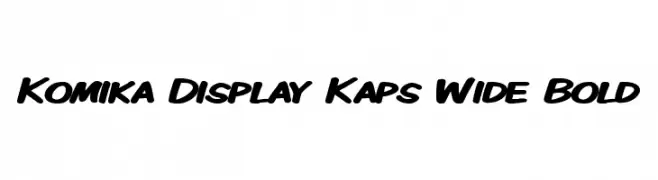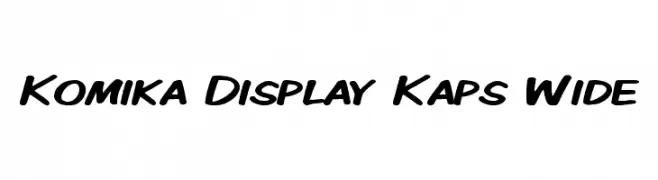
A playful, bold font with rounded edges and a cartoonish style.
A bold, rounded, and playful font with a dynamic slant.
A bold, playful font with a handwritten style and wide, rounded letters.
A bold, wide, and playful font with rounded, cartoonish characters.
A playful, comic-inspired font with bold, rounded characters and tight spacing.
A playful, bold, and wide font with a comic-like style.
A bold, playful font with wide, rounded letterforms and a dynamic slant.
A playful, comic-style font with bold, rounded outlines.
A bold, handwritten font with a playful and energetic style.
A bold, hand-drawn font with a playful, comic book style.